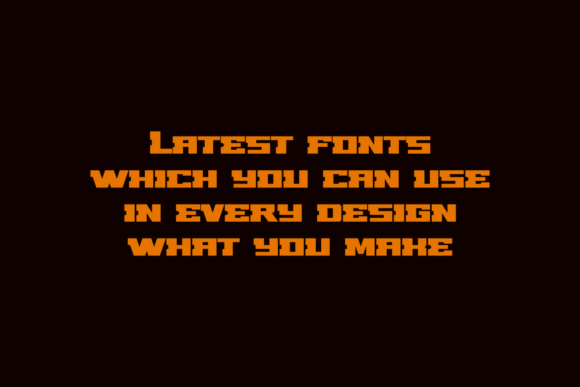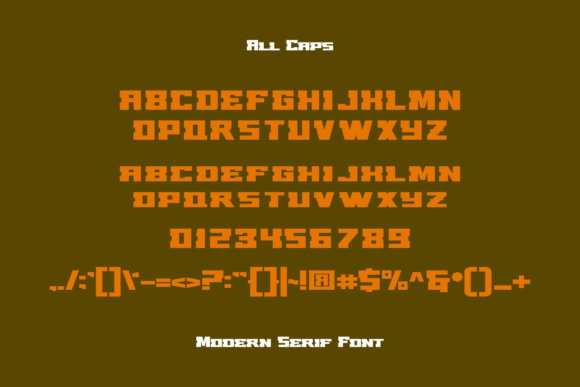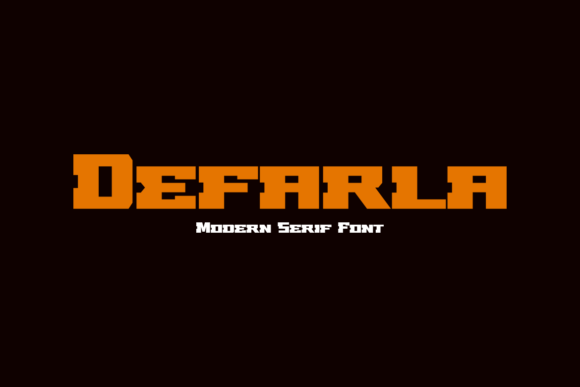
Introduction to Defarla Font
Defarla Font this is one of our fonts suitable to complement your digital and printed creative products.
This font is perfect for posters, social media posts, branding, personal projects, etc .
Defarla Font offers exceptional quality and versatility, making it a valuable addition to your design toolkit. Whether you’re creating for personal projects or commercial use, Defarla Font delivers professional results.